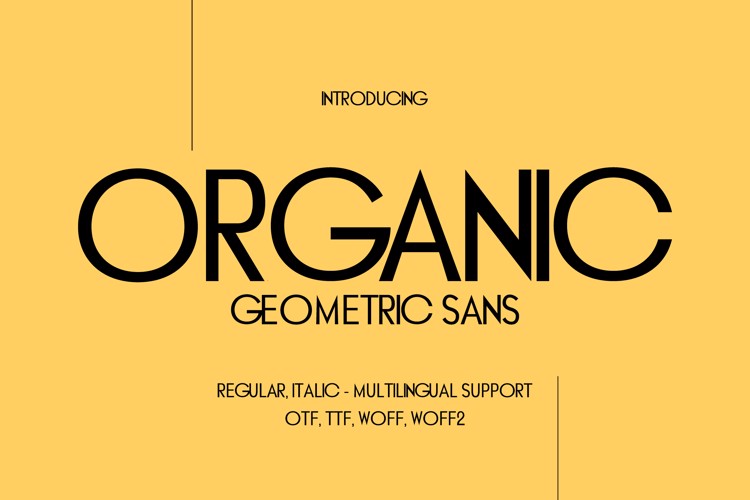
ORGANIC Font
π¨ Font Name: Organic by Minimalist Art Studio
π¨ Font Description: Organic Geometric Sans is a bold sans serif with multilingual supportβideal for tech branding, editorial layouts, and minimalist packaging.
β Complete Latin set + multilingual diacritics
β Alternates, stylistic sets & ligatures
β Numbers, small caps, and extended punctuation
β Bonus italics and family styles